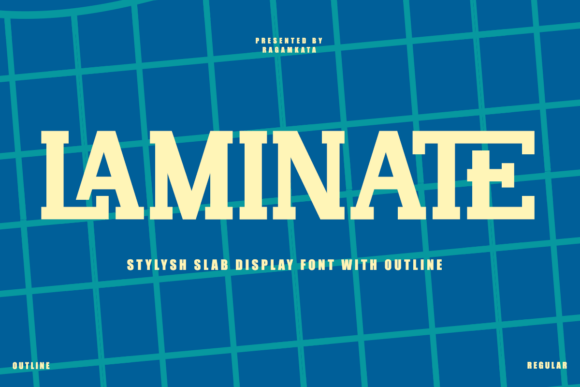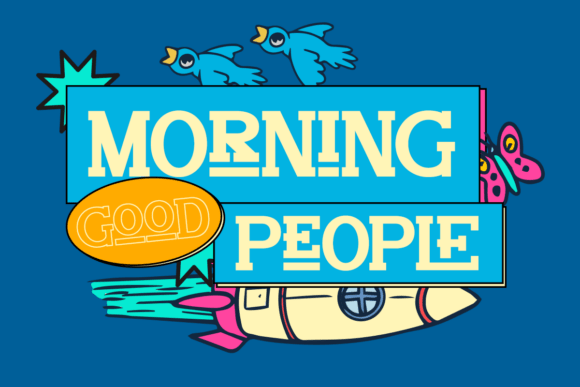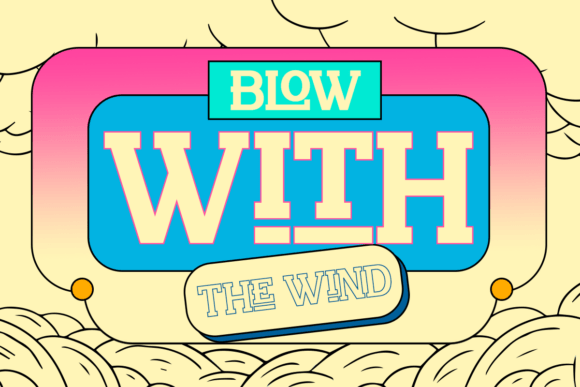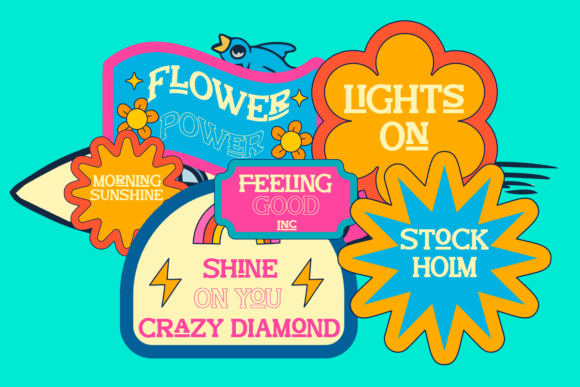
Laminate Font: A Retro 80s Slab Serif for Bold Logo Design
About the Laminate Font
Add a touch of class to your work with the Laminate Font, a truly exceptional typeface. Laminate is a stylishslab serif font is inspired by pop design posters from the 80s and 90s. Comes in 2 styles, Regular and Outline. This font supports multilingual language and Ligature. Laminate is perfect for titles, design posters, logotypes, merchandise, flyers, packaging, and etc. very helpful for communicating your design.
Laminate’s bold, retro style shines in headlines, posters, and branding projects requiring a strong visual impact. Its playful energy makes it ideal for packaging and merchandise targeting younger demographics or brands with a vibrant personality. However, its condensed letterforms and strong visual weight make it less suitable for body text or UI elements requiring high readability.
For optimal pairings, consider a clean sans-serif like Open Sans or a geometric sans-serif like Futura for a balanced contrast. These fonts will provide readability when paired with Laminate’s bolder headlines or logos. A simple serif like Merriweather can also add a touch of sophistication.
The overall personality is energetic and modern, conveying a sense of fun and retro cool, making it perfect for brands aiming for a nostalgic yet contemporary aesthetic.
Laminate Font Usage Examples
Laminate Font Example